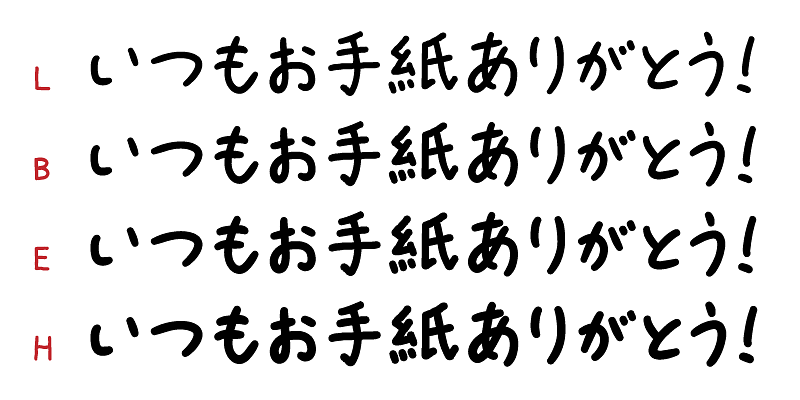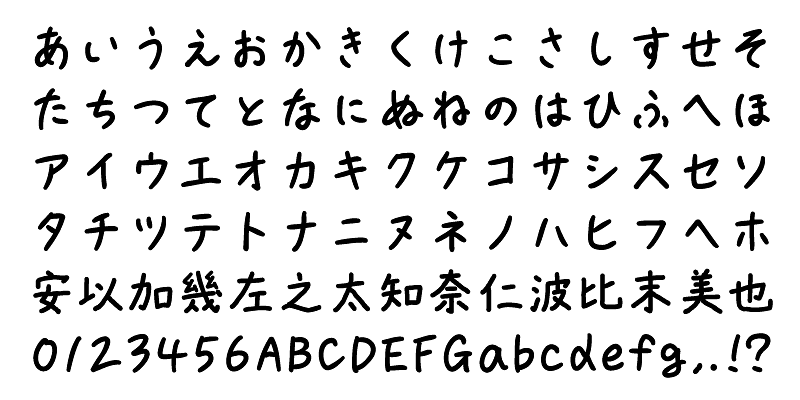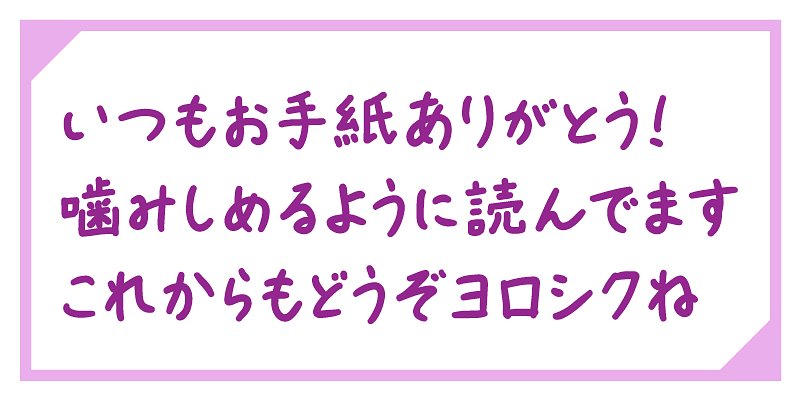
The “takumi okiraku marker-tai font” is based on a running hand, which looks as if written with a felt-tipped marker, giving a refreshing feeling. The height and weight of the kana glyphs is intentionally inconsistent to look more like real handwriting. Its style is not as formal as traditional book hands for writing letters; it provides a casual, forthright, personal writing style. This typeface will be effective in conveying your messages faithfully and clearly.
Fonts with names ending with “P” have proportional widths for alphanumeric, hiragana, katakana and some symbol characters. Fonts with names that do not end with “P” have fixed widths for these characters.